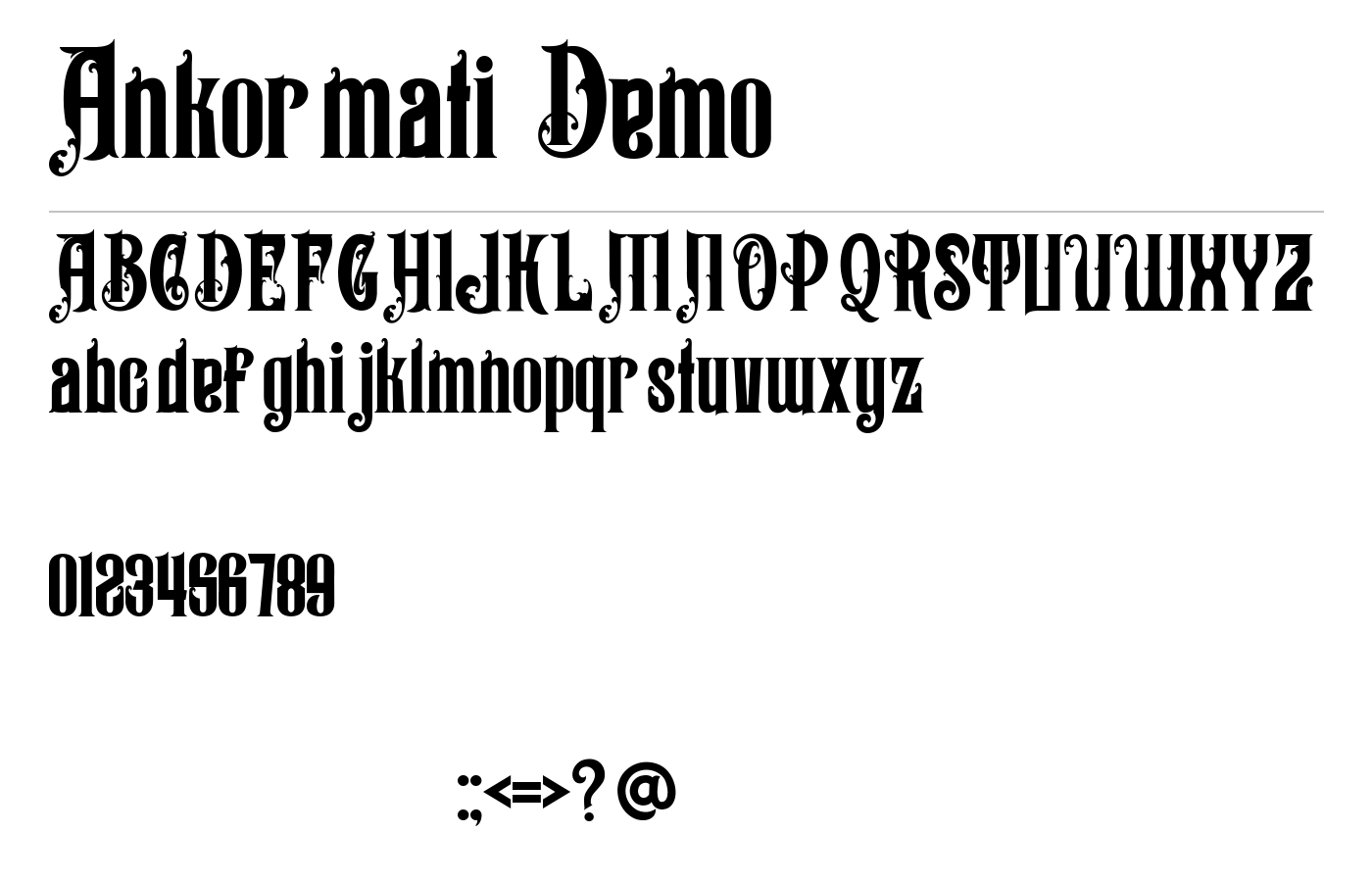
Ankormati Demo is a bold, condensed serif font with a striking vintage flair, featuring high contrast between thick and thin strokes and intricate decorative elements on several characters. Its ornate, bracketed serifs and playful details give it an old-world, almost gothic personality that works well for eye-catching headlines, logos, and branding in creative fields looking for a dramatic, classic touch. This font is best suited for display use where its unique style can lend a strong, artistic character to fashion, poster, or editorial designs.
Ankormati Demo Font
About Ankormati Demo Font